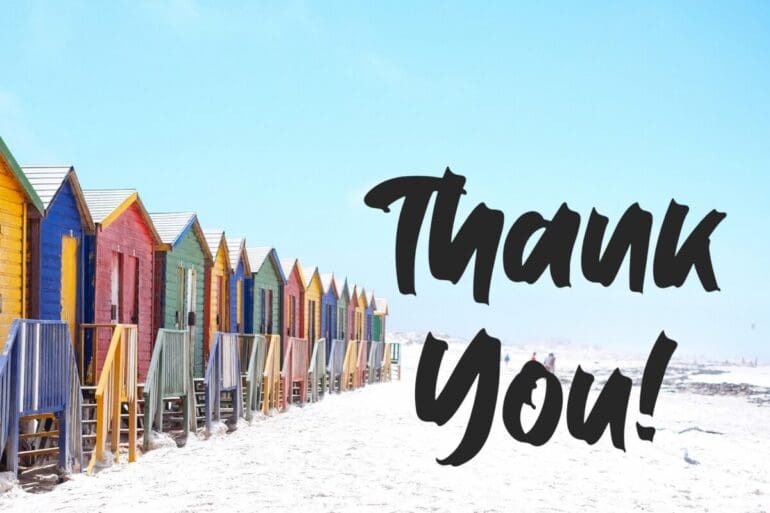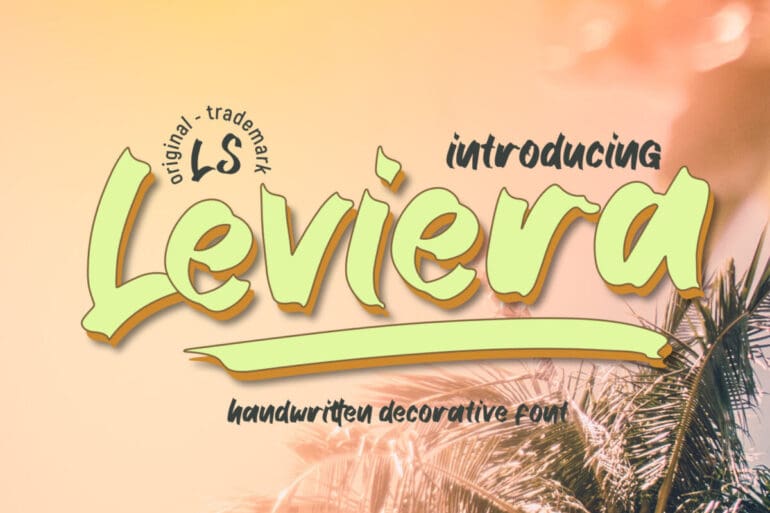
Leviera Font
Leviera Font. This pair was inspired by the summer poster design that i saw on some coffee shop, It was crafted by hand specially to add natural handmade feeling in its brand identity than I make it clean with pentool. Thank you for using this font.